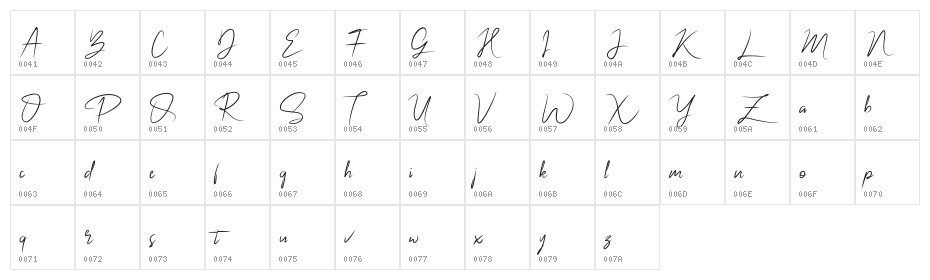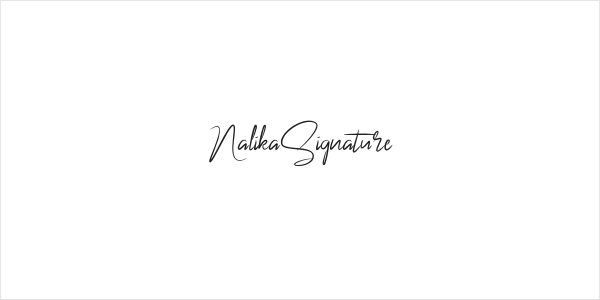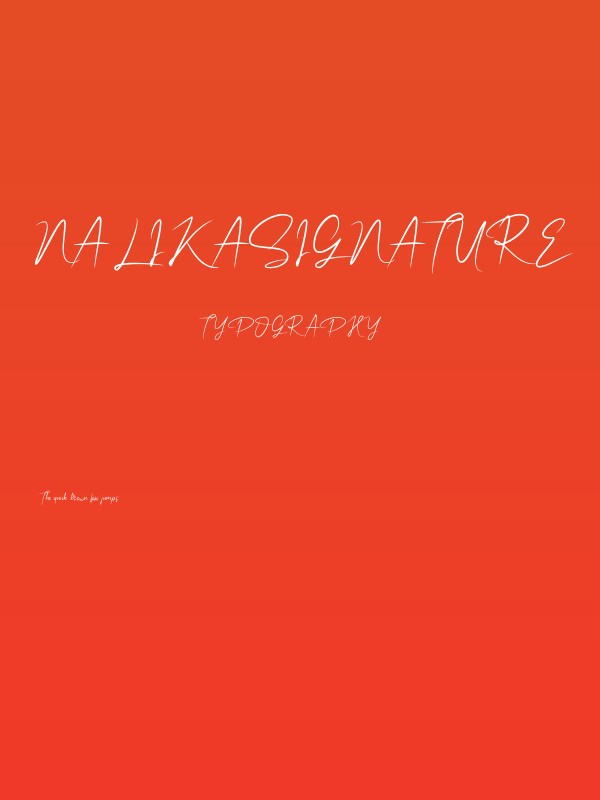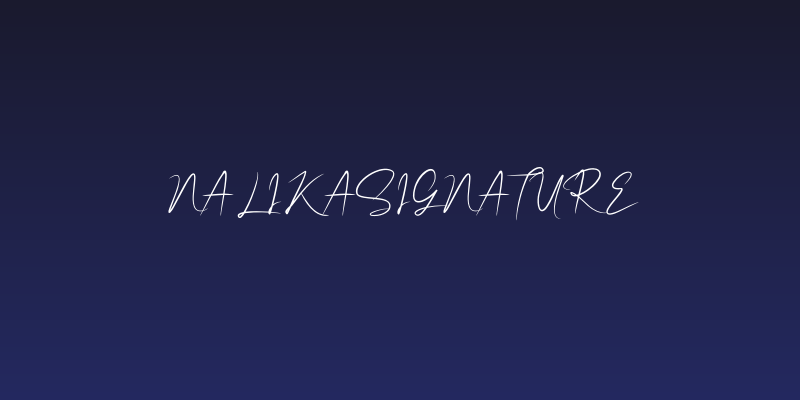
NalikaSignature Font
NalikaSignature Description
This elegant script font features a flowing, cursive style with a modern twist. The uppercase letters are characterized by sweeping, elongated strokes that give a sense of movement and grace. The lowercase letters maintain a consistent flow, with some characters featuring unique loops and curves that add personality. The overall design is sophisticated and stylish, making it suitable for projects that require a touch of elegance. The font's thin strokes and high contrast between thick and thin lines enhance its delicate appearance, while the spacing between characters is balanced to ensure readability.
| Proposed Projects | Ideal for wedding invitations, branding, luxury product packaging, and elegant logo designs. |